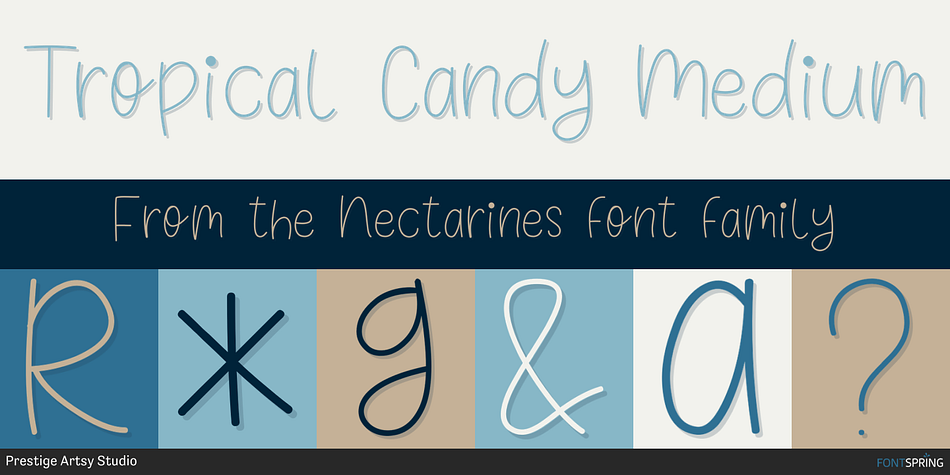
Tropical Candy Medium
Nectarines is a font family. This typeface has eight styles and was published by Prestige Artsy Studio.
Introducing the exclusive Monoline Cute Font Bundle – a collection of 8 charming and whimsical monoline fonts. Add adorable cuteness to children’s books, invitations, and social media graphics. These user-friendly fonts are versatile and highly legible. Bring a sprinkle of charm to your designs with this monoline font bundle today!
• Melon Slice
• Peach Avenue
• Blossom Spring
• Tropical Candy
• Berry Kisses
• Puddle Doodle
• Banana Bounce
• Snuggle Script